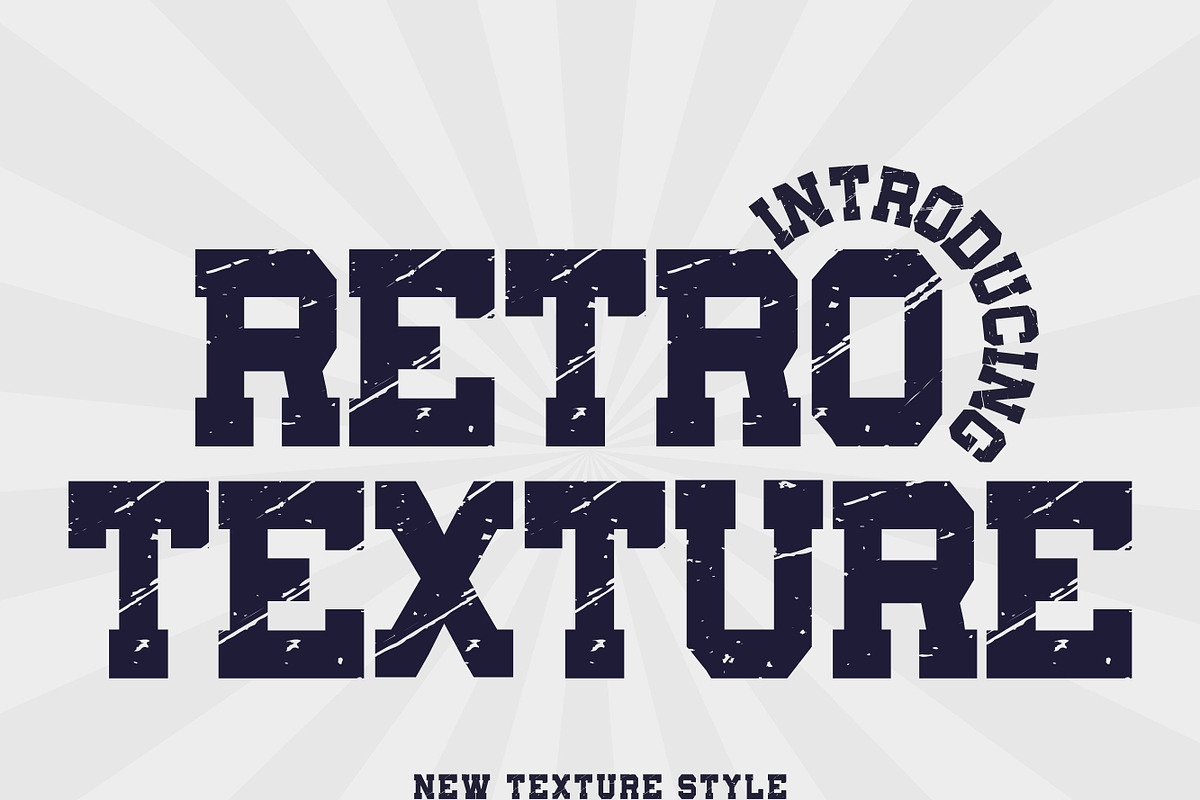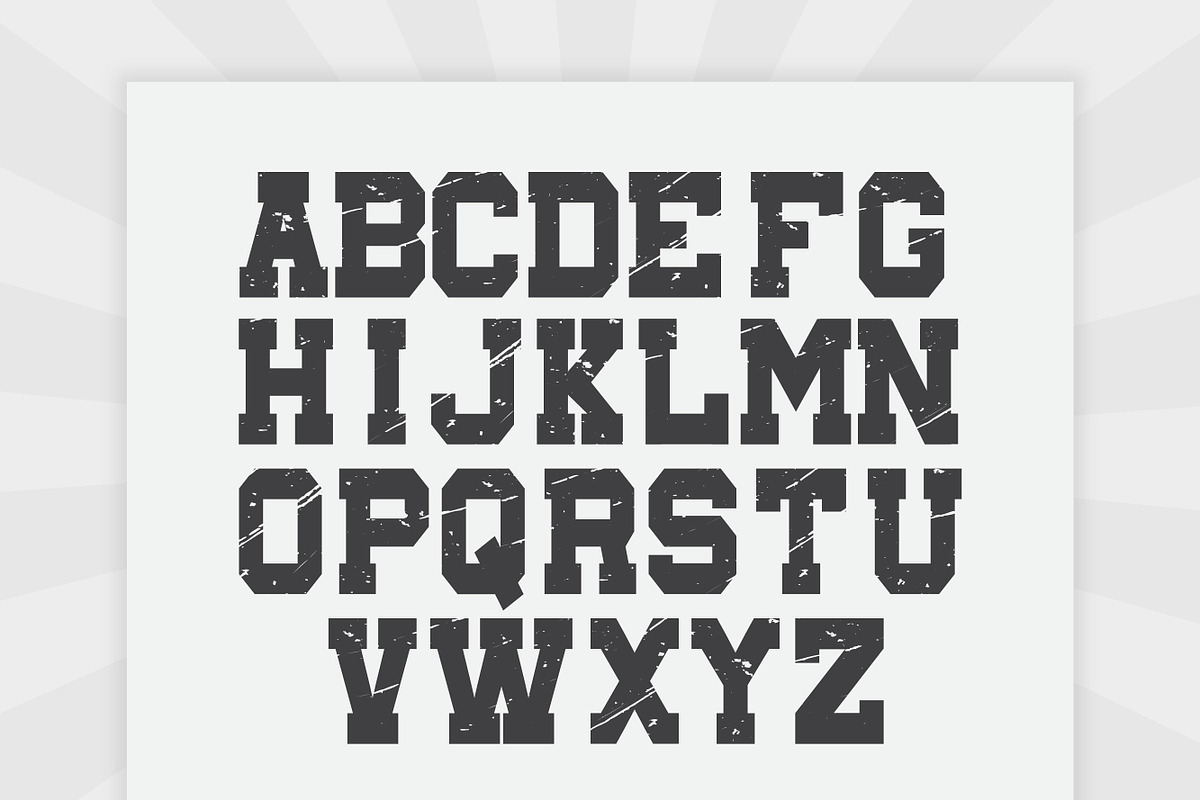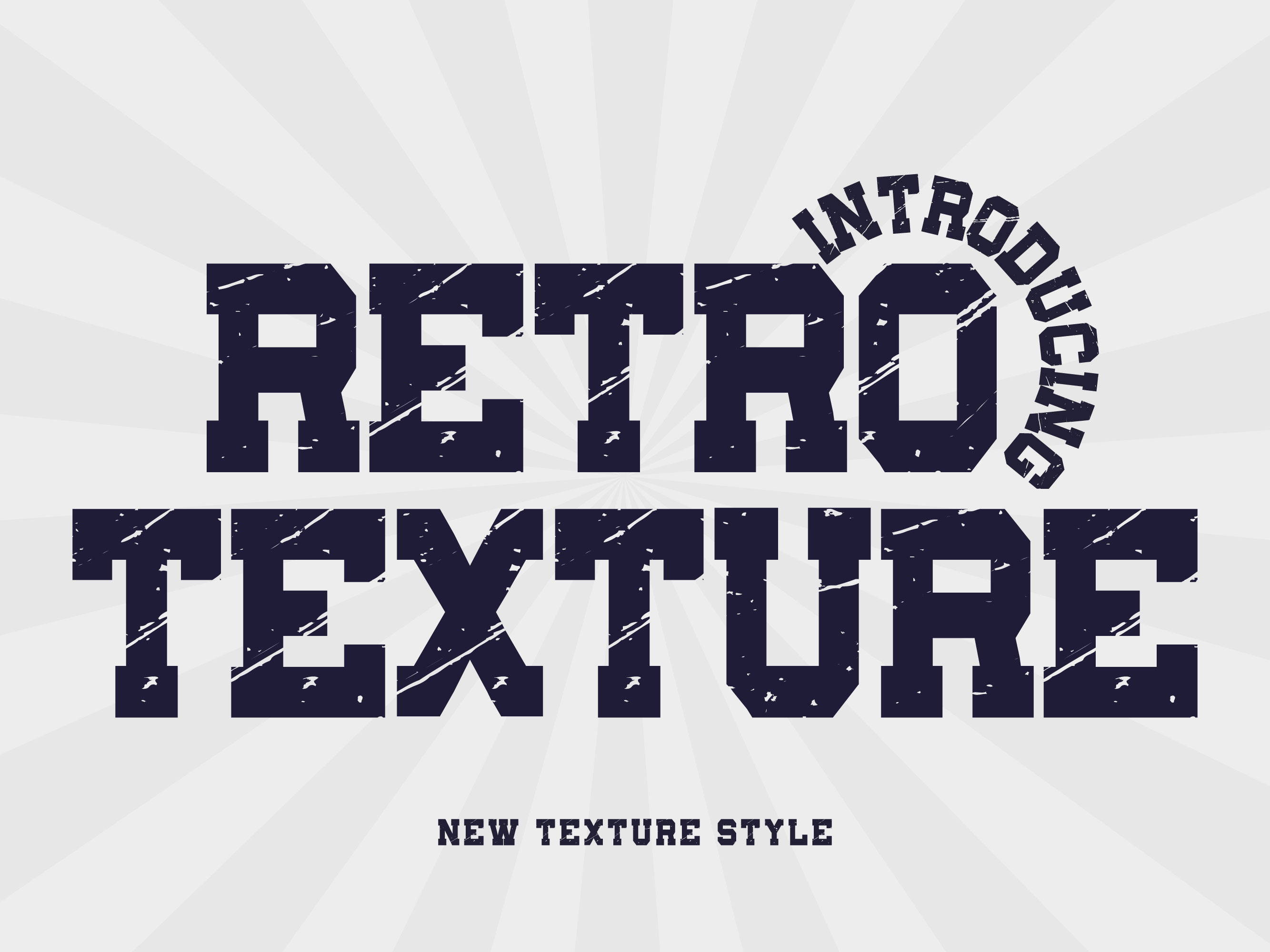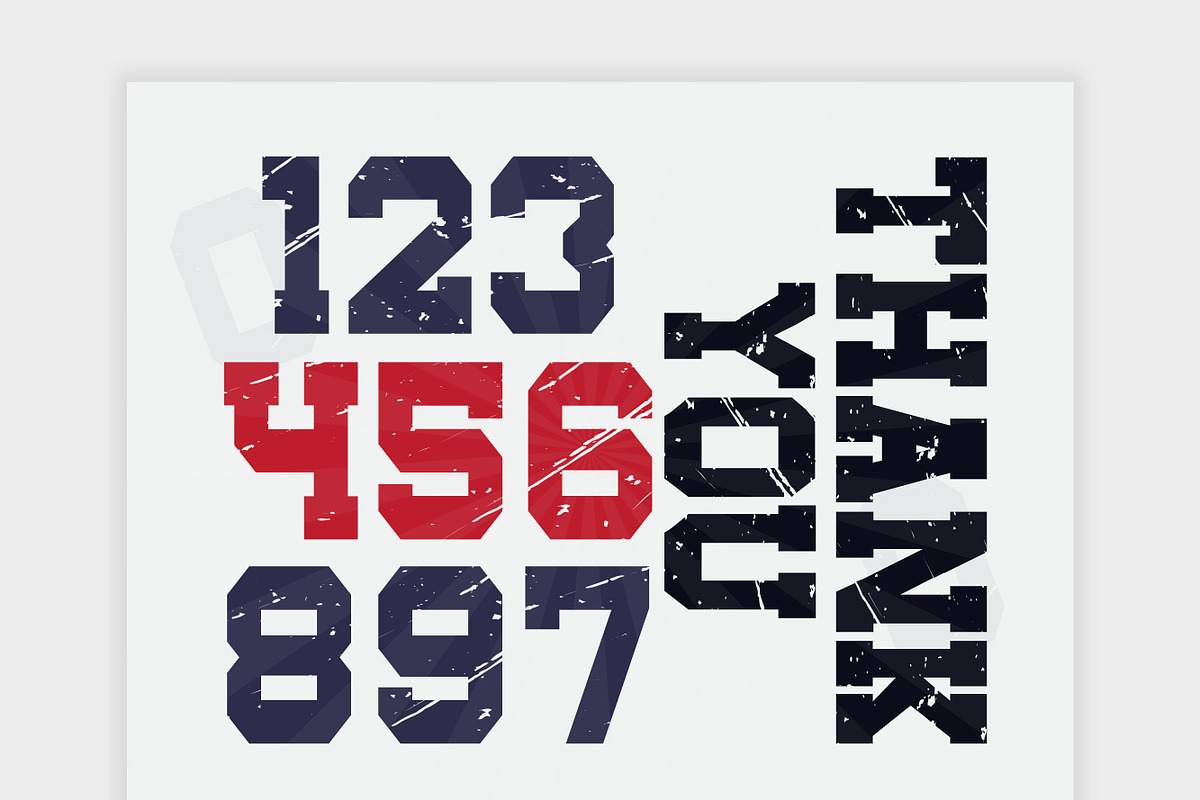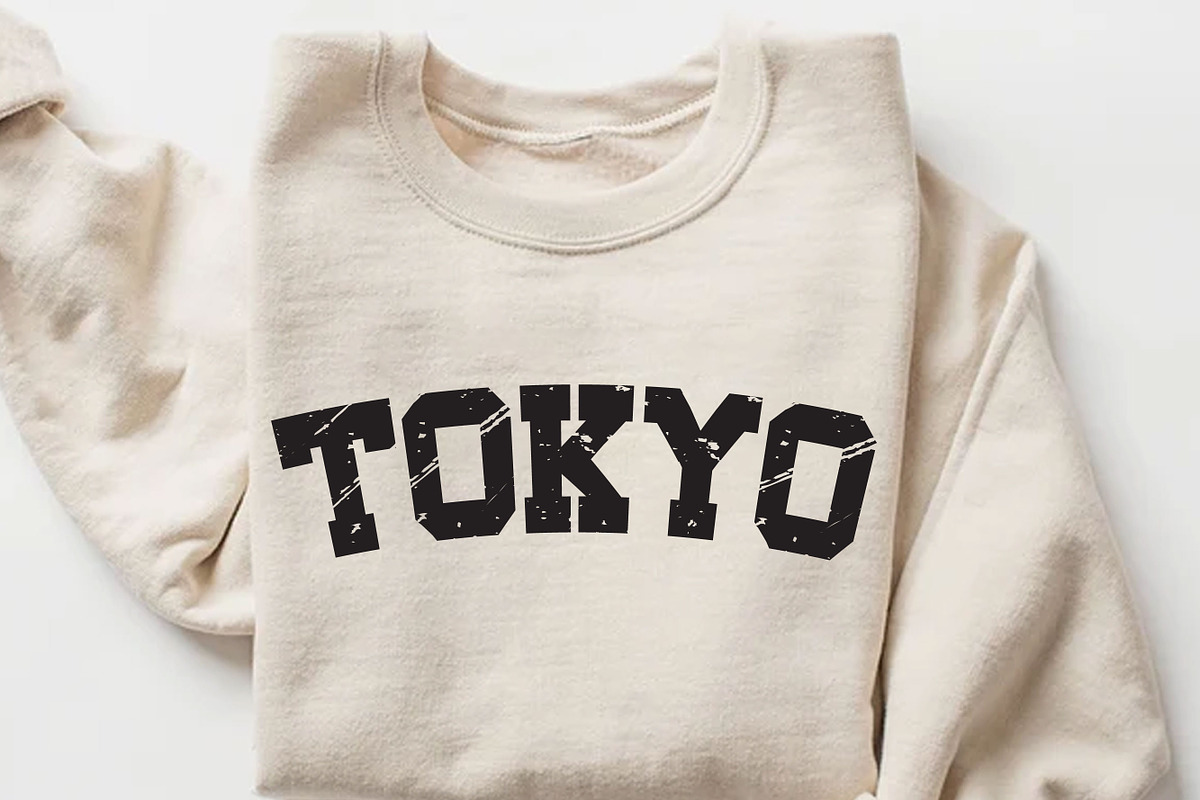
Retro Texture - Grunge varsity font
Add a touch of classic varsity style to Perfect for sports-themed design projects. This Varsity font is sure to making jerseys, Party invitations, home decor items and more.